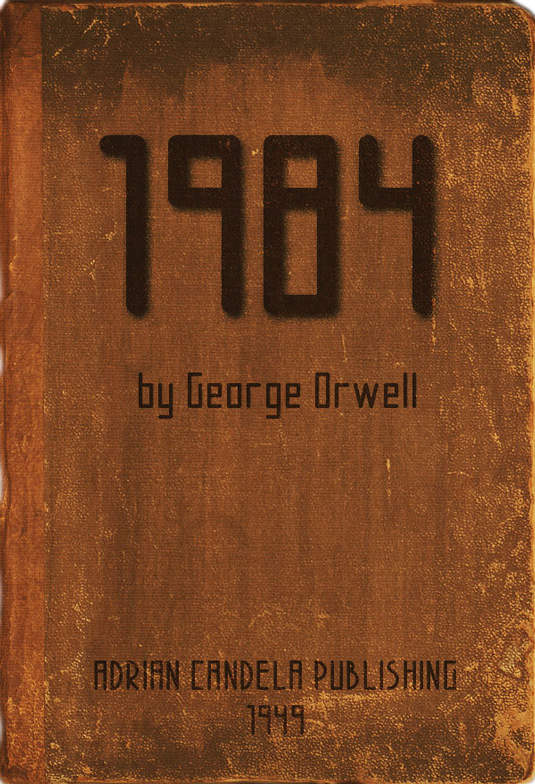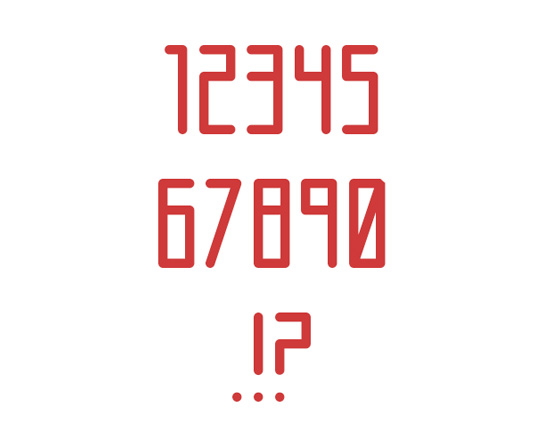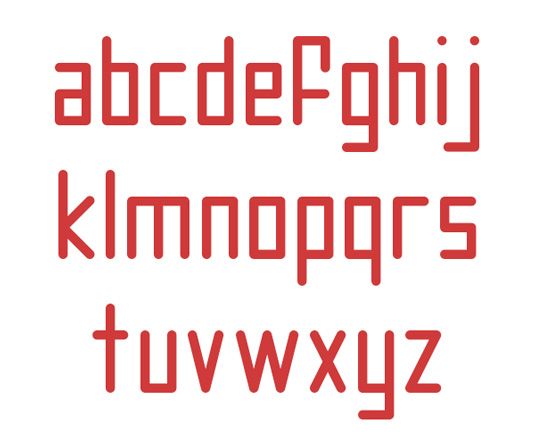
Font of the day: AC Brodie
AC Brodie by Adrian Candela
Our font of the day AC Brodie, was created by graphic designer and 3D artist Adrian Candela. "AC Brodie is a font made for titles or headlines with a 1940's futuristic look," he comments.
"The design is based on a geometrical pattern, namely a rectangle, where the lower case is two thirds of the upper case, with the ascenders the same height as the caps."